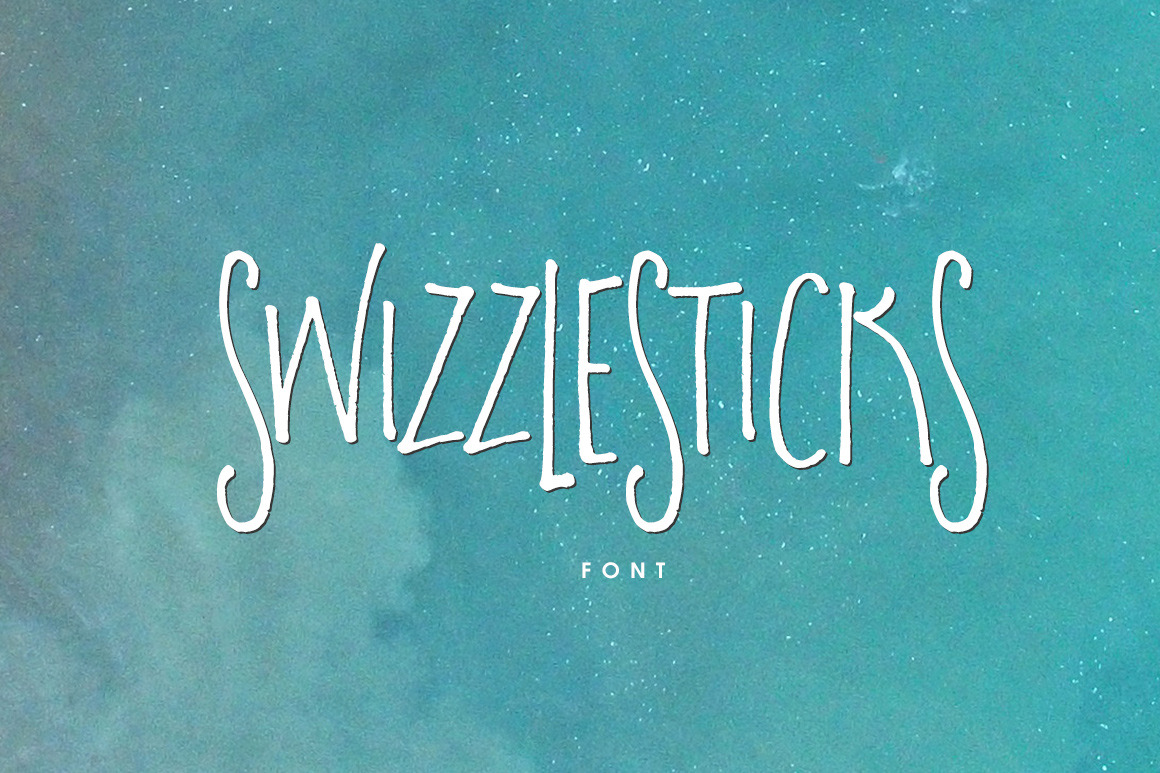
Swizzlesticks Font
This is Swizzlesticks. A slim hand drawn marker font with attitude. This font is part of the Big Bunch of Fonts Volume 1 here https://crmrkt.com/VrVG